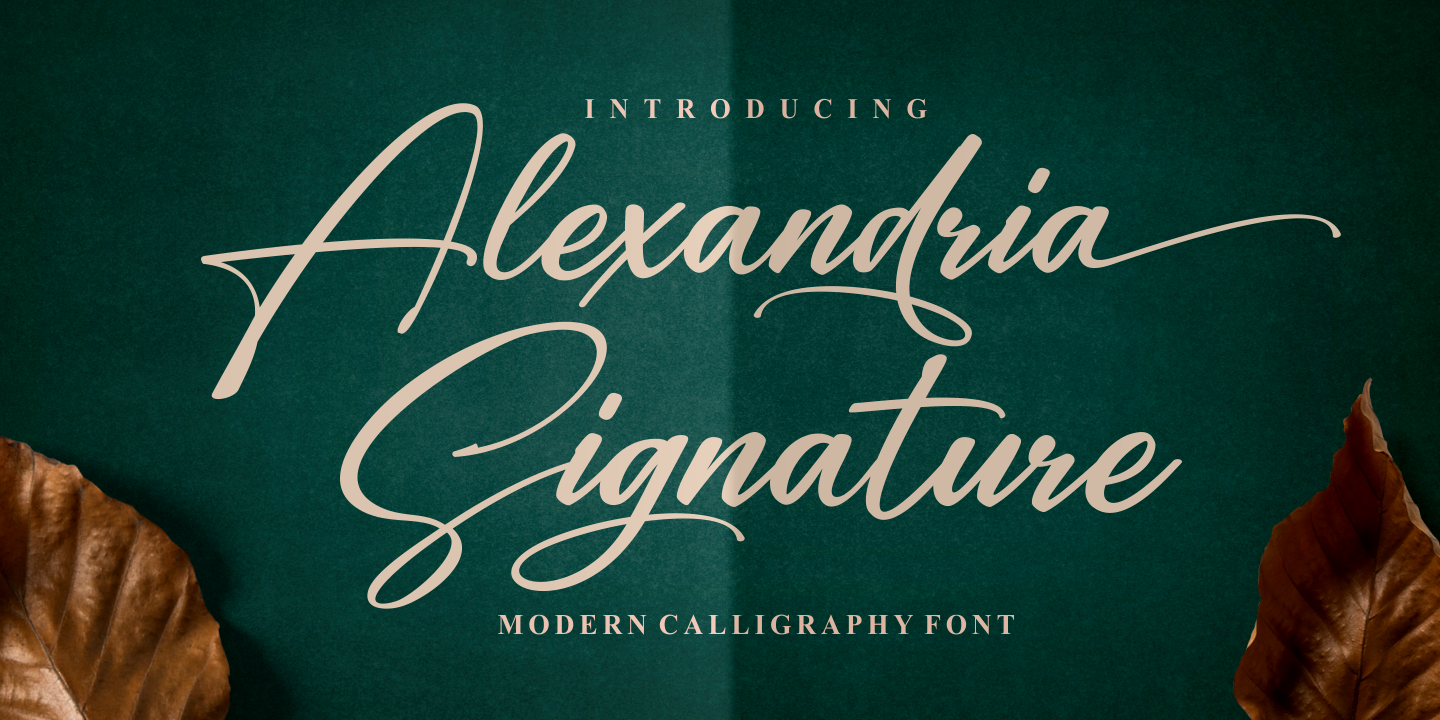
Alexandria Signature Font is perfect for luxury brand signatures, exclusive document signing, high-end personal stationery, boutique hotel branding, premium certificate designs, elegant business cards, sophisticated wedding invitations, and upscale corporate identity materials. This refined typeface excels in applications where personal elegance and signature authenticity are essential.
What makes Alexandria Signature Font so exciting is its ability to capture the sophisticated flow of an executive's personal signature while maintaining the elegance of classical penmanship traditions. The font features fluid letterforms with natural signature variations and authentic pen pressure effects that create an immediate sense of personal authority and refined taste. Its distinguished design philosophy combines handwritten authenticity with luxury appeal, making it perfect for high-end brands seeking to convey exclusivity, personal attention, and premium service quality.
Alexandria Signature Font belongs to the signature script font family, specifically designed for luxury branding and executive communication applications. This typeface family emphasizes authentic handwritten flow through carefully crafted letter connections and natural signature rhythm, ensuring prestigious presentation across various upscale and professional design contexts.
Elevate your luxury communications with Alexandria Signature Font Free Download, a typeface that embodies the sophistication of executive penmanship and premium brand identity. This exquisite font delivers exceptional elegance for high-end applications, featuring comprehensive character sets with signature flourishes and executive-style alternates that capture the essence of personal authority. Its meticulously crafted letterforms maintain excellent legibility while preserving the authentic signature aesthetic across various sizes, from intimate business correspondence to prestigious corporate signage. The font's distinctive executive personality makes it invaluable for designers creating luxury brands, premium business materials, and exclusive content where conveying personal sophistication and executive-level quality is paramount for brand prestige.